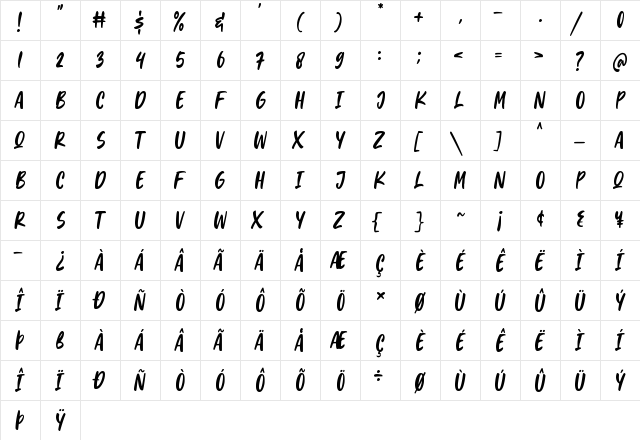
Light In Brush Regular Font Preview
Design Context for Light In Brush Typeface
Light In Brush flows with the natural rhythm of handwritten lettering, making it ideal for designs that call for warmth and personal expression. Its slender proportions lend an understated elegance to any composition.
Font Pairing: Combine Light In Brush with a simple geometric sans for maximum contrast — the tension between flowing curves and clean structure is a classic typographic pairing.
Pro Tip: Pair Light In Brush with a clean sans-serif for supporting text. The contrast between fluid script and geometric structure creates an elegant typographic hierarchy.